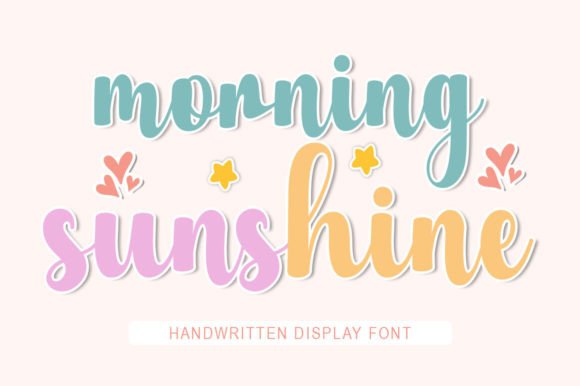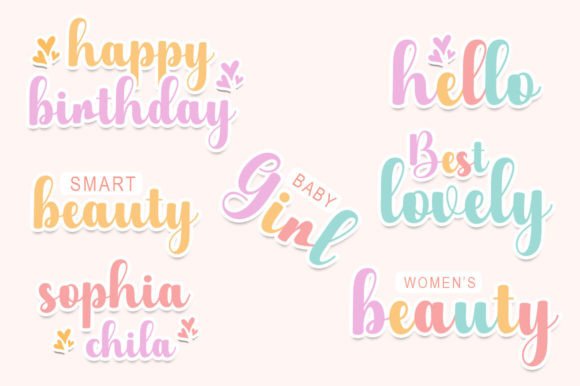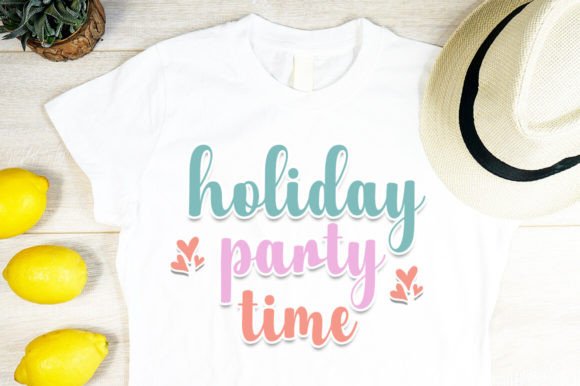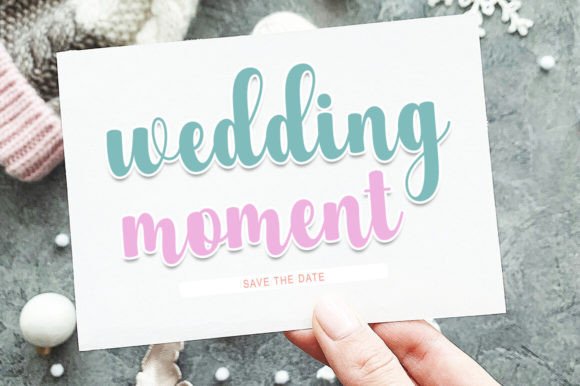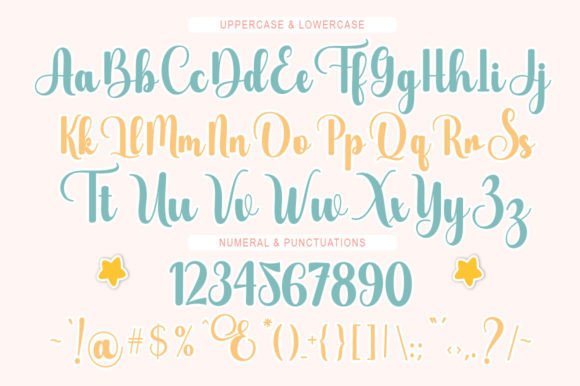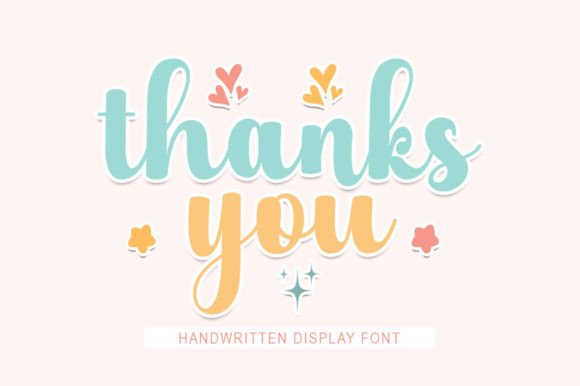
The Perfect Font for a Joyful Design: Introducing Chella Font
As a designer, there’s nothing quite like the thrill of discovering a font that perfectly captures the essence of a project. It’s the moment when all the elements come together, and you know you’ve found the perfect match. For me, that moment happened when I stumbled upon Chella Font, a delightful display font that radiates warmth and cheerfulness.
Chella Font is a charming font designed to evoke a sense of camaraderie and joy, making it perfect for children’s books, party invitations, and any design project that seeks to spread happiness. Its playful curves and friendly demeanor make it a valuable addition to any designer’s toolkit, allowing them to create designs that are both visually appealing and emotionally resonant.
Chella Font Key Features
- Unique Characteristics: Chella Font features a unique blend of modern and traditional elements, with intricate details and ornate flourishes, making it an ideal choice for designers seeking a distinctive look.
Designer Review: Chella Font
Overall, I’m quite impressed with Chella Font. The first thing that caught my attention was its unique and elegant design. ✨ The curves and lines work well together to create a sophisticated look that’s perfect for luxury brands or high-end publications.
The font has a wide range of weights and styles, making it versatile for various design projects. ✨ I appreciate the attention to detail in the font’s design, from the subtle nuances in the letterforms to the thoughtful consideration of legibility.
What I Like
- Unique and elegant design
- Wide range of weights and styles
- Thoughtful consideration of legibility
- Some characters may be difficult to read at small sizes ⚠️
- The font may not be suitable for fast-paced or informal content ⚠️
Overall, I think Chella Font is a great addition to any designer’s toolkit. While it may have some limitations, its unique design and versatility make it a great choice for a wide range of projects. With a bit of careful consideration and planning, I think Chella Font can be a real showstopper.
Chella Font is a beautiful, elegant script font that is perfect for creating invitations, wedding stationery, and other formal documents. To get the most out of it, use it sparingly and in combination with other fonts to add visual interest. Some common use cases include:
– Formal event invitations
– Digital and print advertising